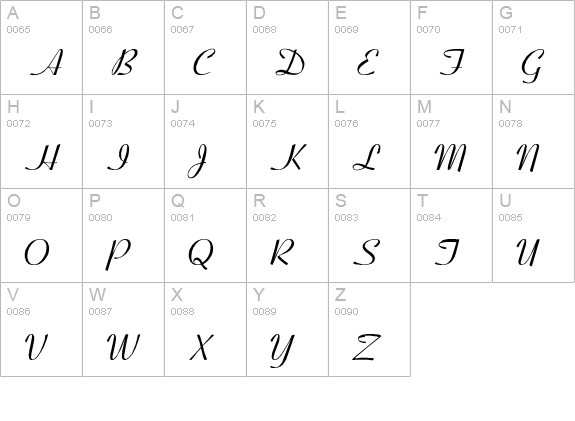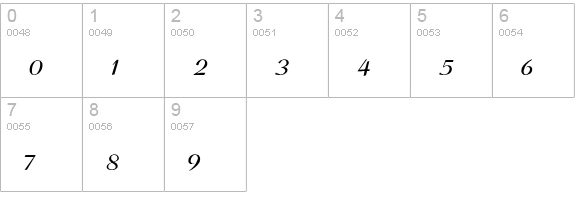
Clarnel-SemiBold-Italic Font Details
Clarnel-SemiBold-Italic is a sub-bold, structured, italic variant in the Clarnel typeface family \xE2\x80\x94 well suited to sub-headlines and emphasised passages.
Clarnel SemiBold Italic font is a versatile and stylish typeface that exudes sophistication and modernity. With its bold yet elegant design, this font is perfect for making a statement in any design project. The semi-bold weight adds a touch of emphasis, while the italic style brings a sense of flair and dynamism. This font is ideal for a wide range of applications, from branding and advertising to editorial design and packaging. Its unique personality and readability make it a great choice for headlines, titles, and other display text. The Clarnel SemiBold Italic font strikes the perfect balance between professionalism and creativity, making it a must-have in any designer's toolkit. Best of all, this font is available for free download at FontsMarket.com. So go ahead and elevate your designs with the Clarnel SemiBold Italic font today!